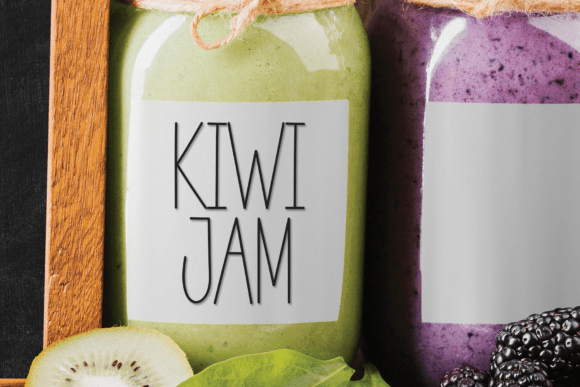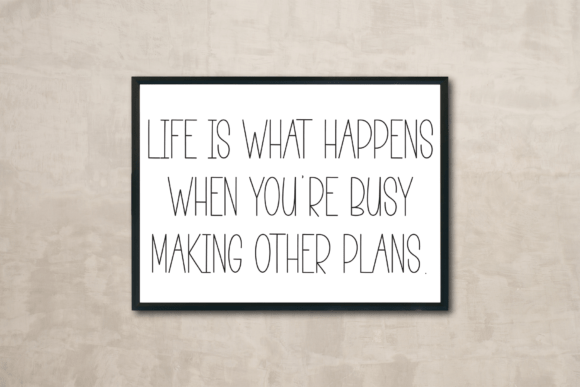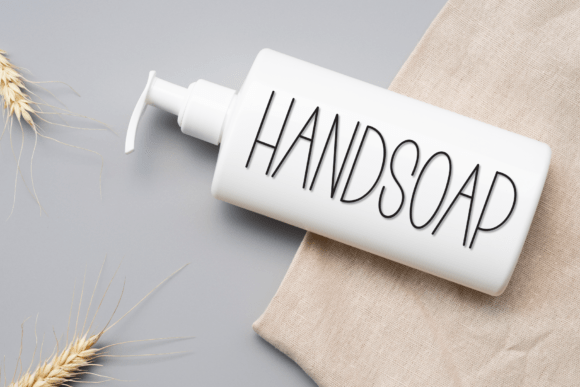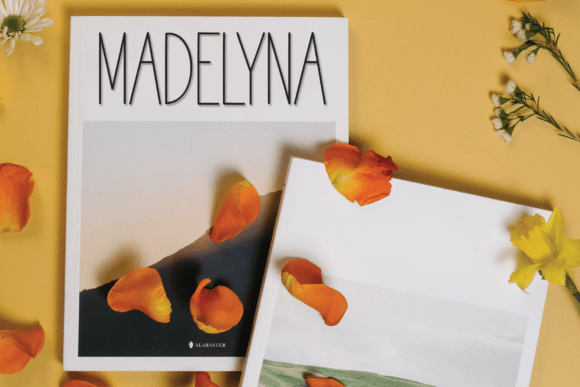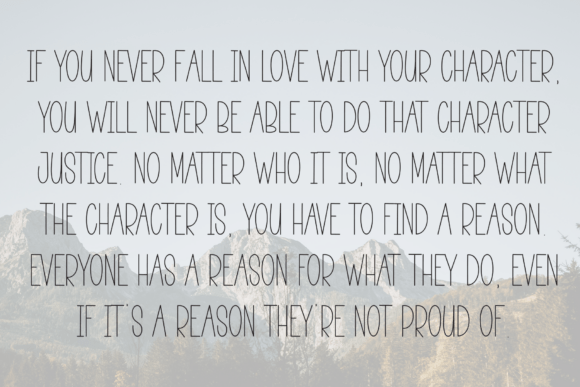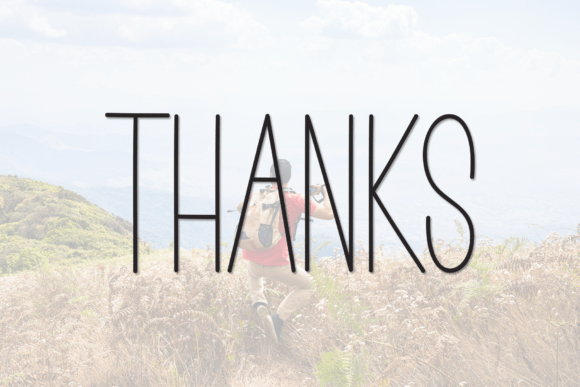
Introduction to Season Adventure Font
Season Adventure is a tall, narrow display font with a clean, modern aesthetic and an adventurous spirit.
Its condensed letterforms and minimalist structure make it perfect for travel posters, outdoor branding, editorial headlines, and lifestyle content The fontโs sleek lines and airy spacing evoke a sense of exploration and elevation, making it an ideal choice for projects that aim to inspire motion, clarity, and discovery.
Key Features of Season Adventure Font
Why Choose Season Adventure Font?
Season Adventure Font offers exceptional quality and versatility, making it a valuable addition to your design toolkit. Whether you’re creating for personal projects or commercial use, Season Adventure Font delivers professional results.